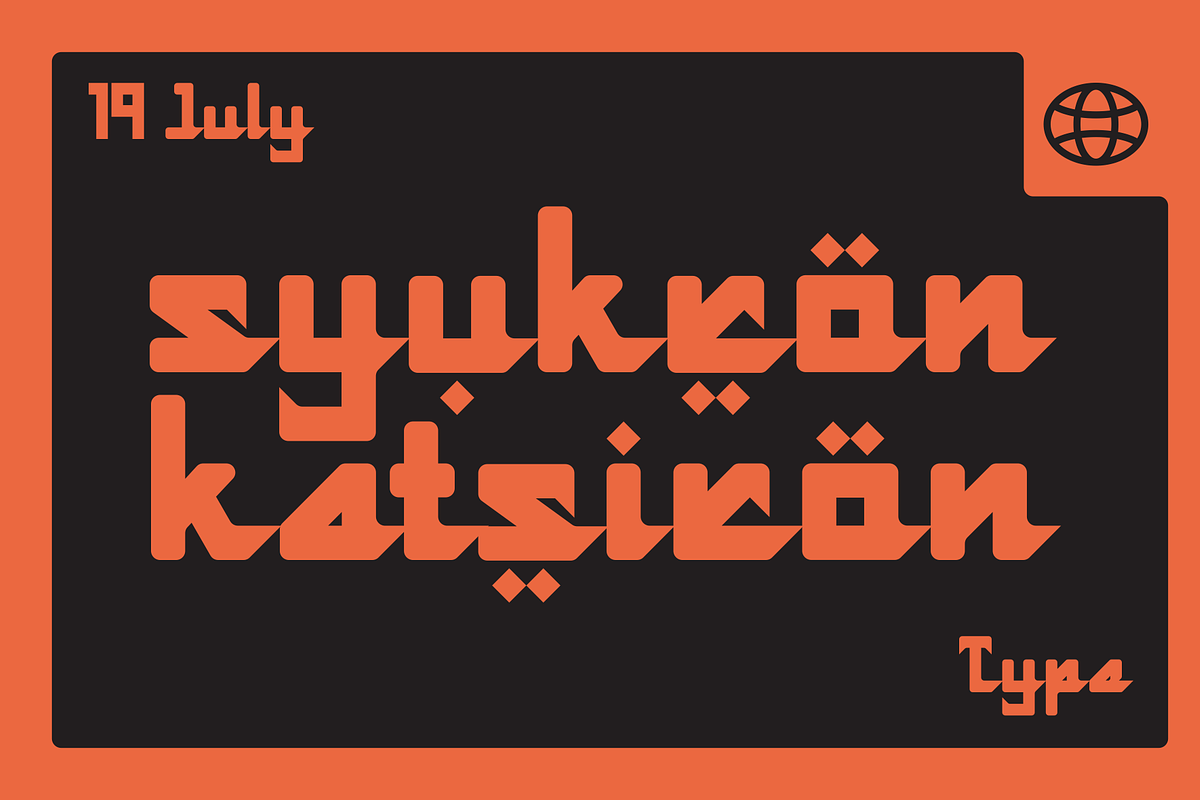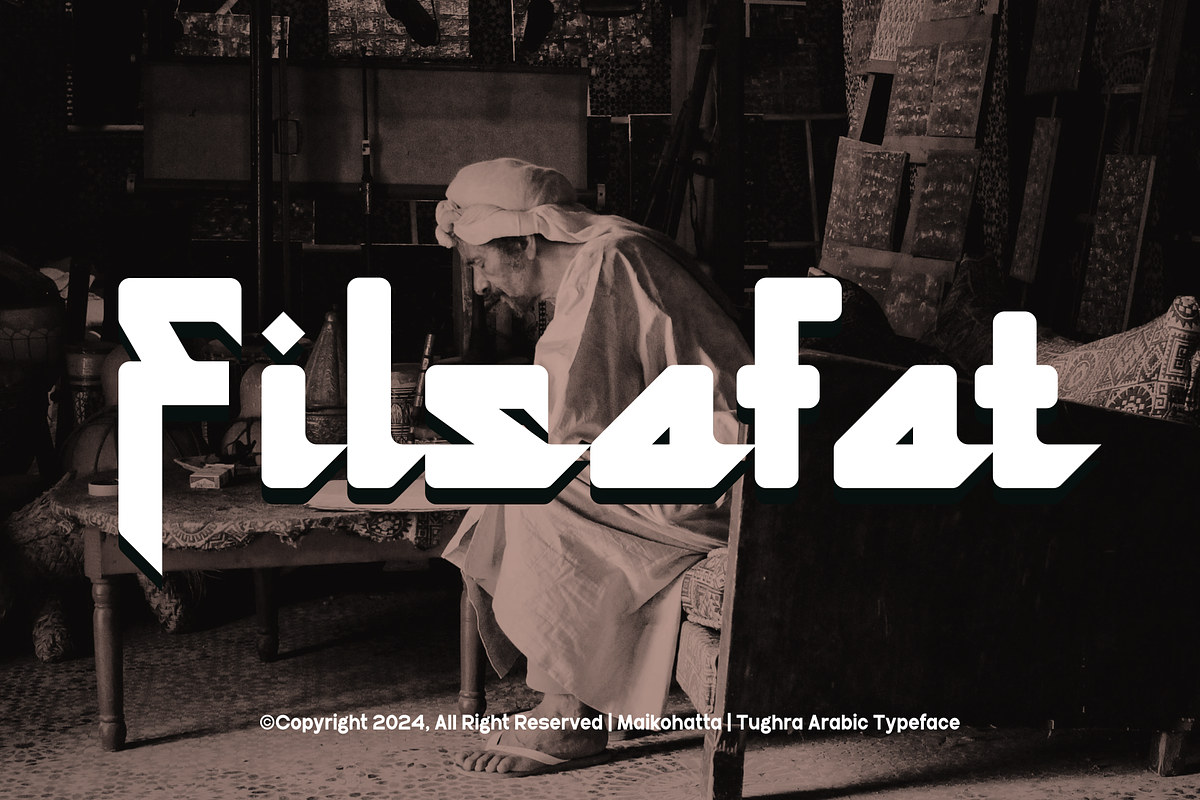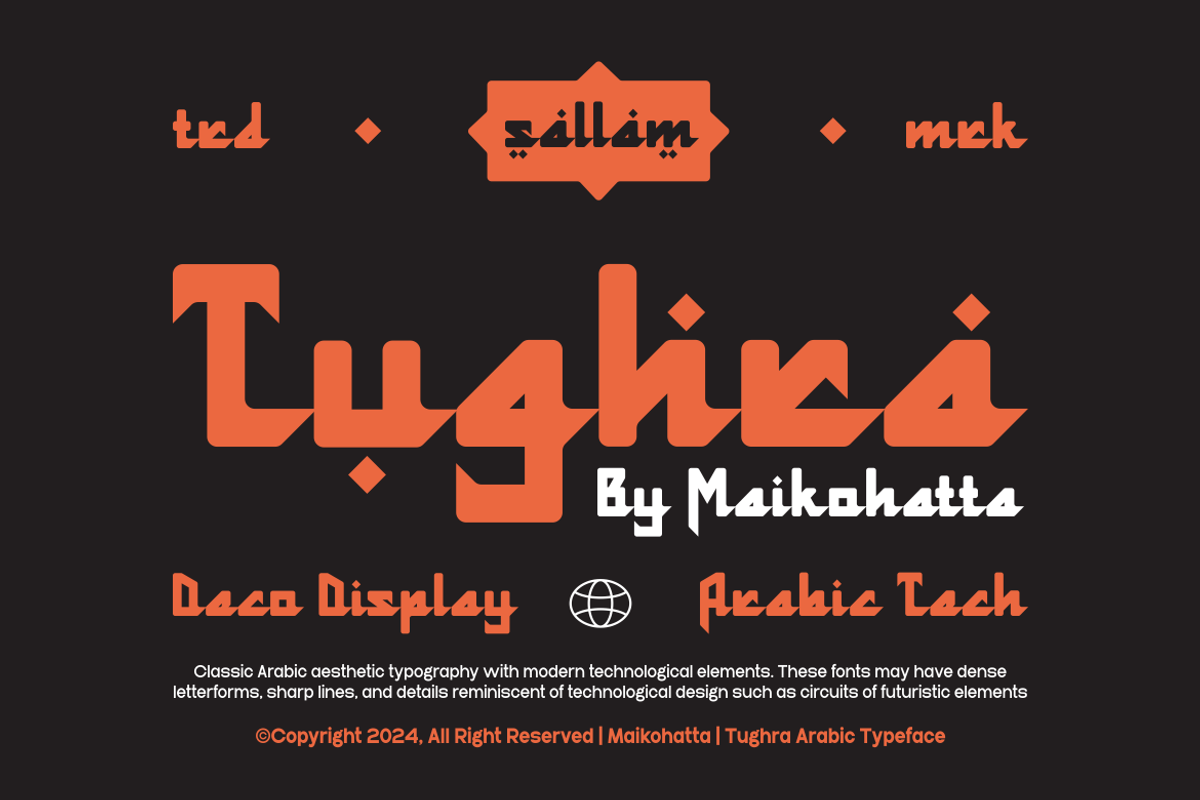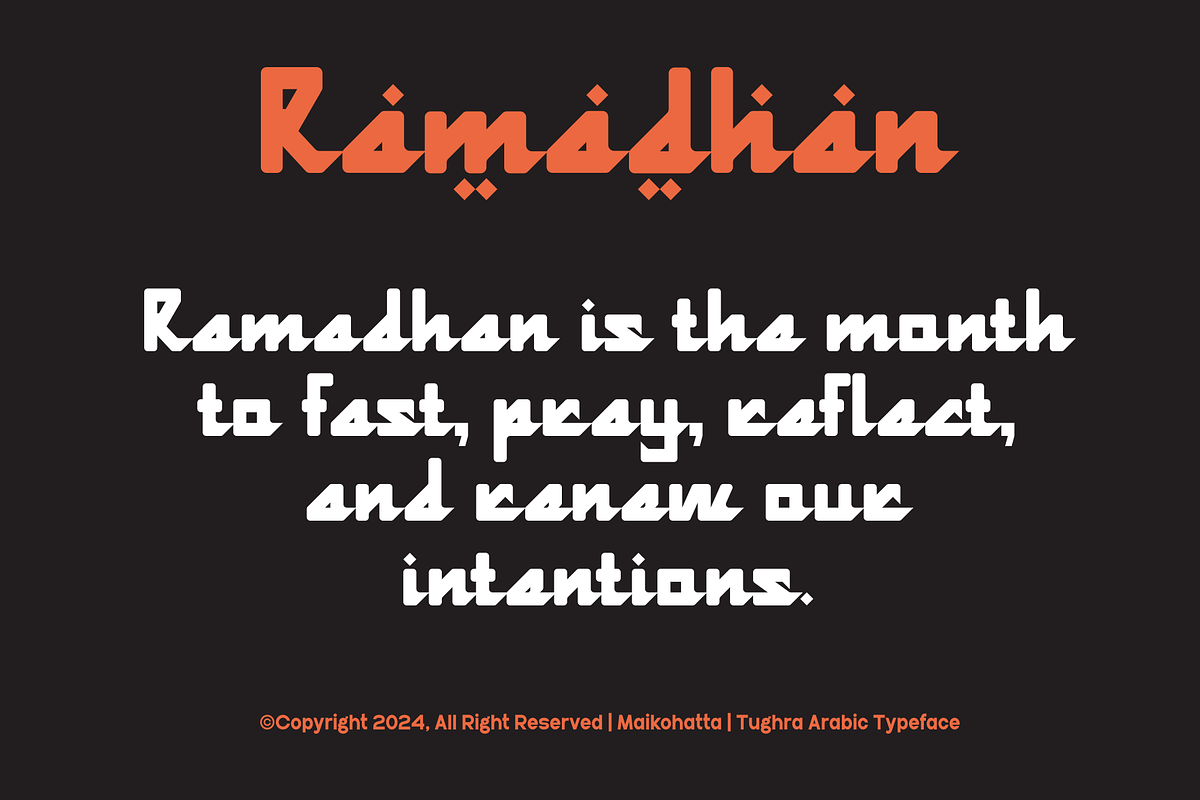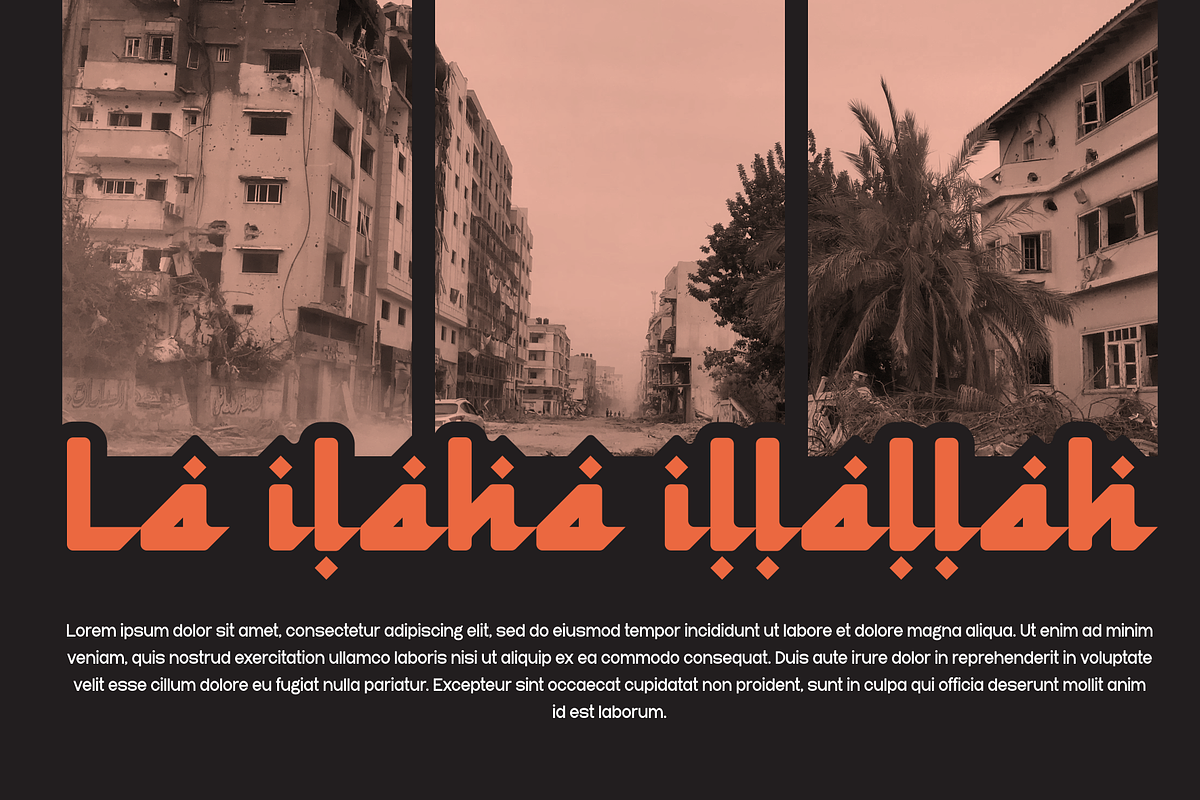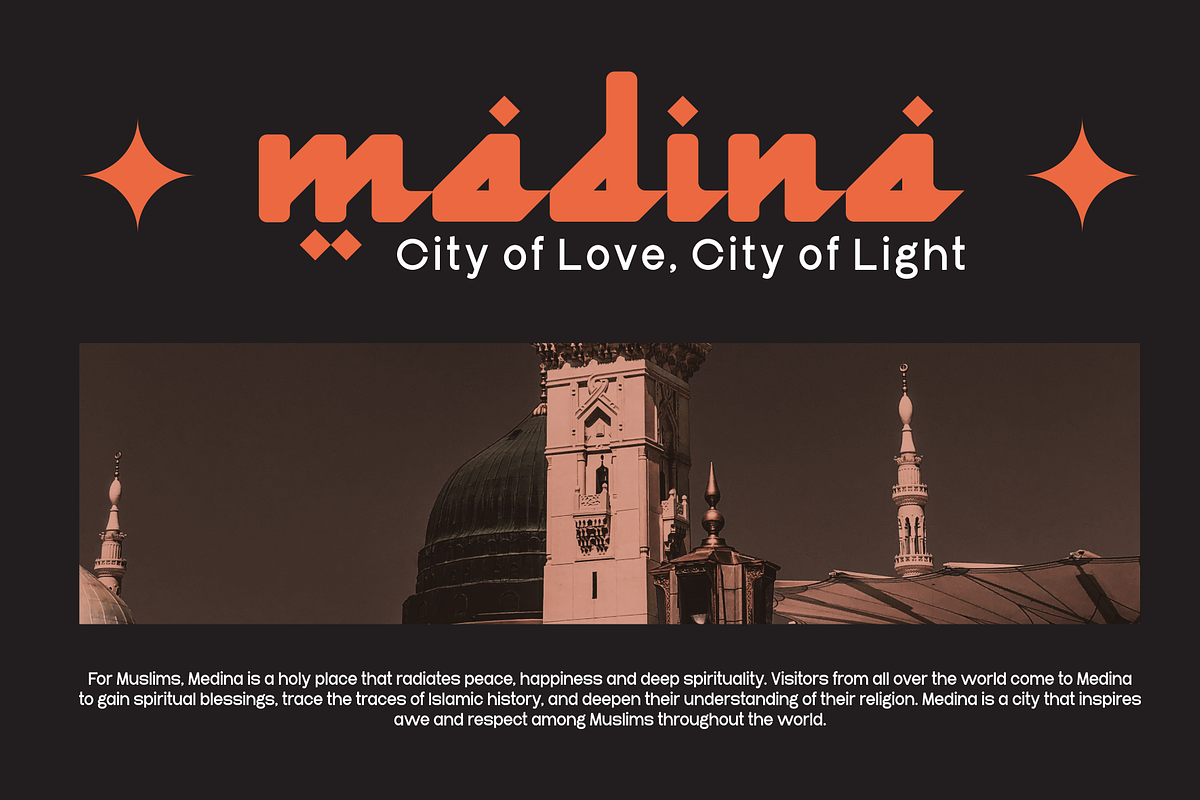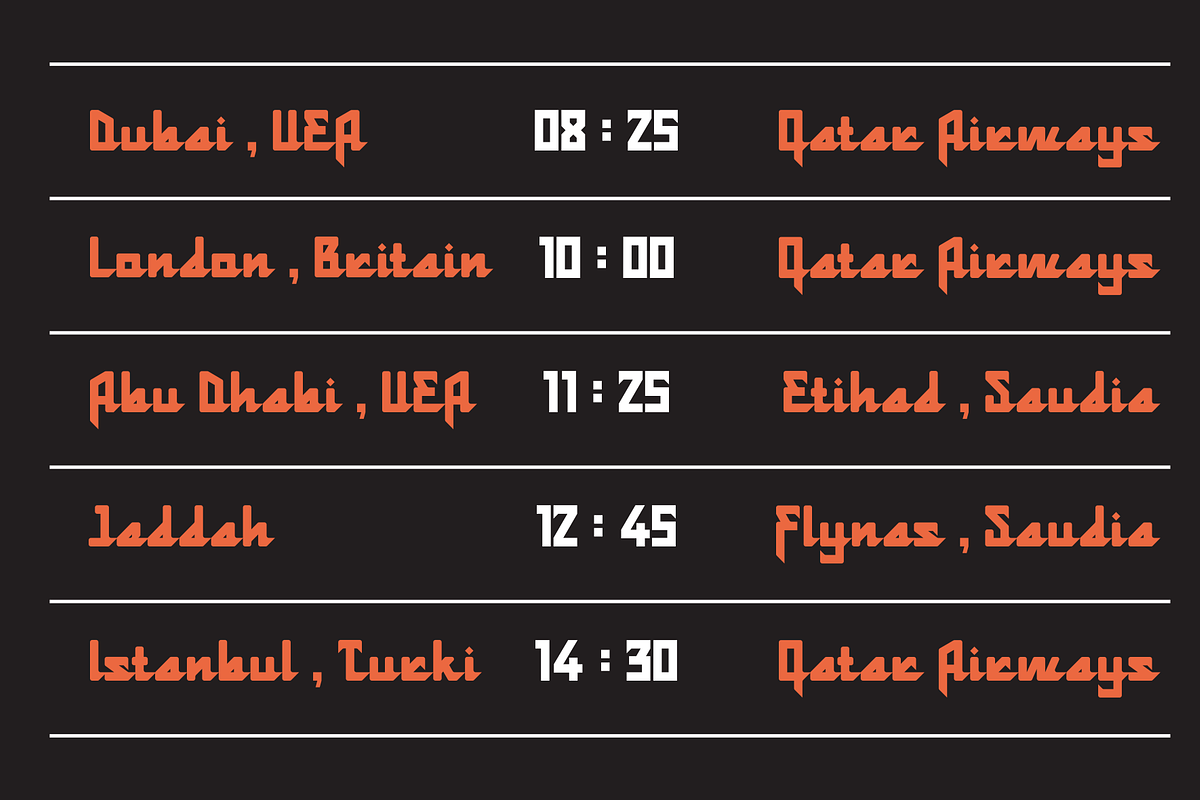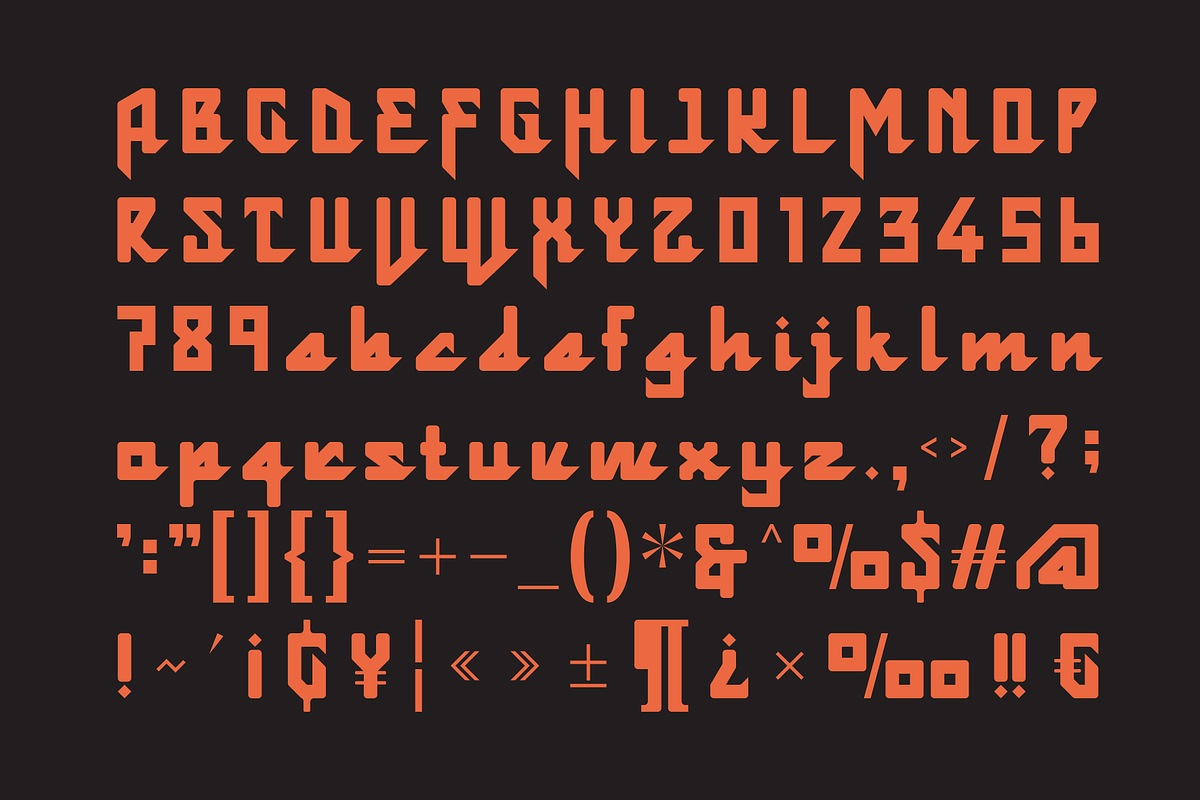
Tughra - Arabic Techno
Introducing our new product Tughra - Arabic Techno
Tughra Modern Font is a bold and authentic display font. The font is suitable for any branding project like logo, Template Design, esport, and many more. outstanding in a wide range of contexts.